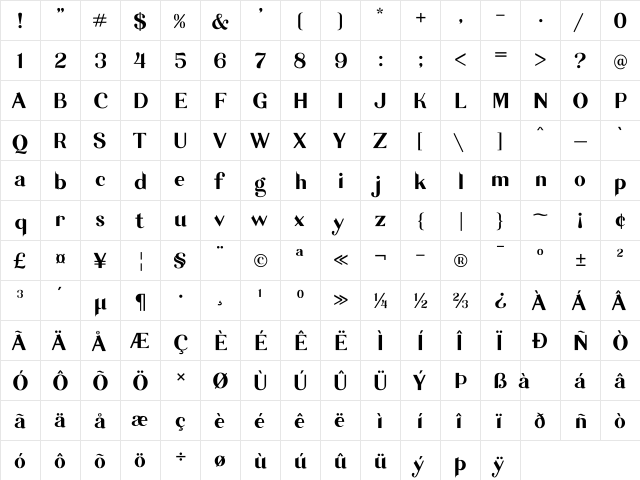
Garlic Sans Sans-Regular
Design Context for Garlic Sans Typeface
Garlic Sans offers clean, dependable letterforms without strong stylistic allegiance, making it a practical choice for designers who need flexibility.